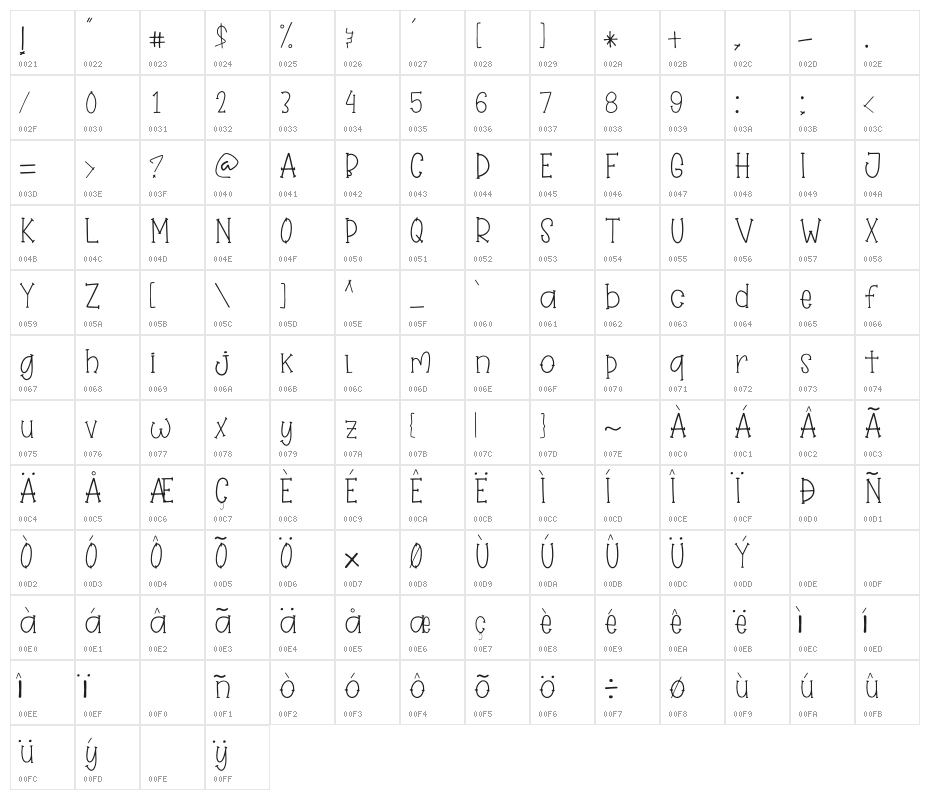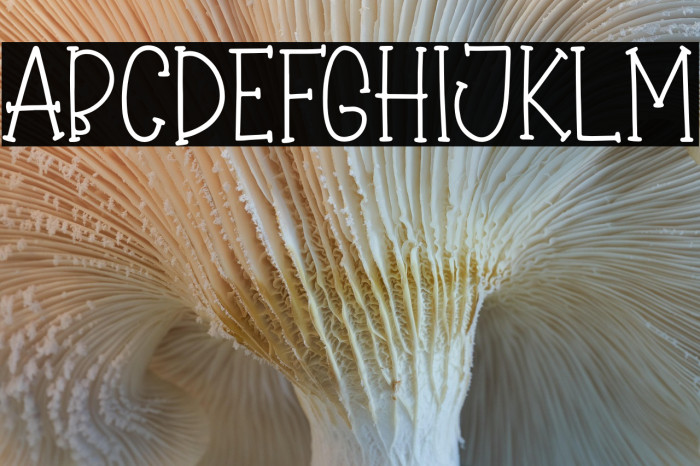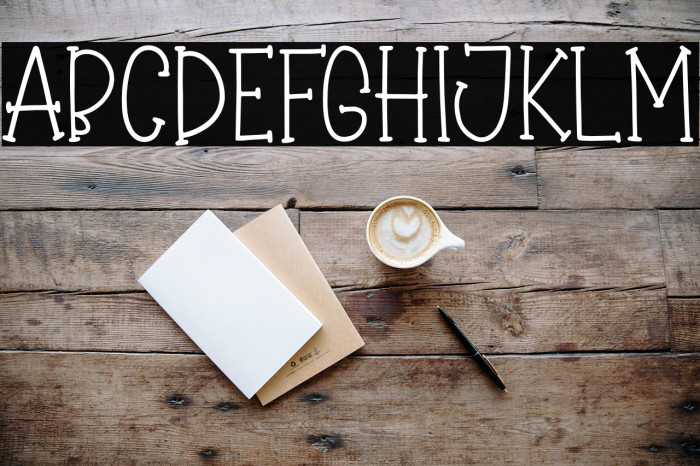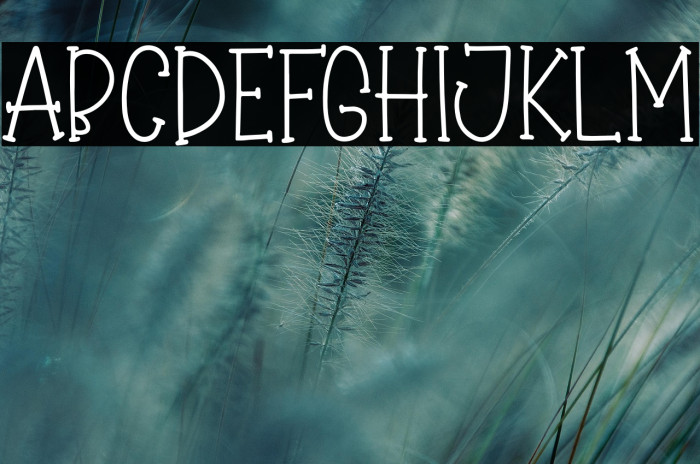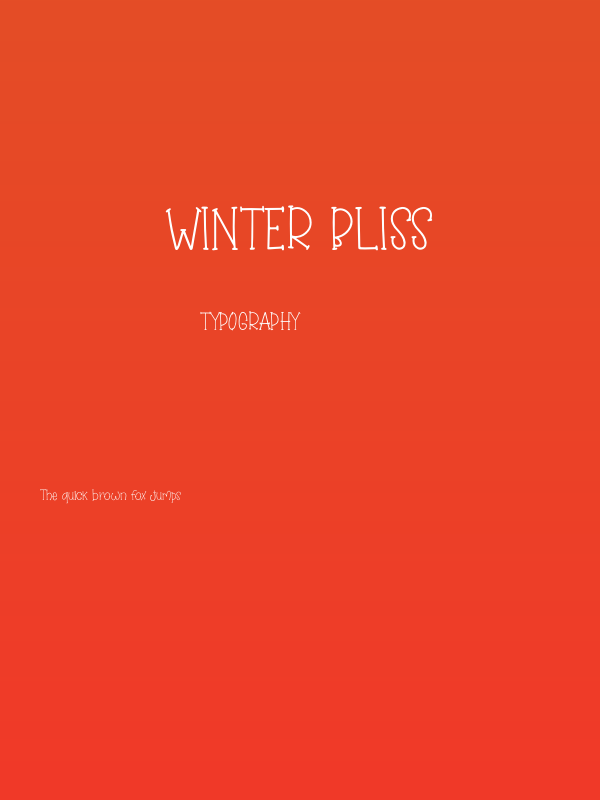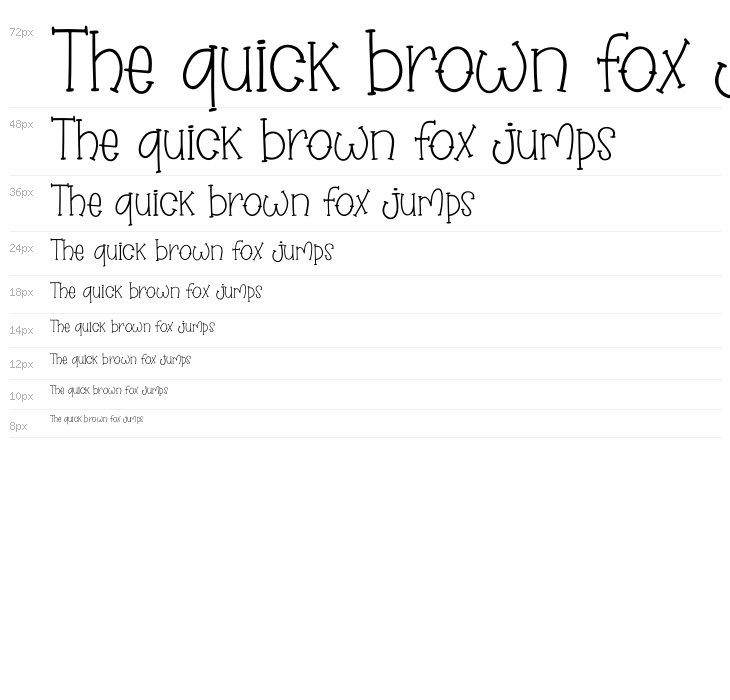
Winter Bliss Font
Winter Bliss Description
This playful and whimsical font features a handwritten style with a casual, friendly appearance. The letters are slightly irregular, adding a touch of charm and personality. The strokes are consistent in width, giving it a uniform look, while the tall, narrow characters provide a sense of elegance. The font includes both uppercase and lowercase letters, numbers, and a variety of special characters, making it versatile for different uses. Its unique style is perfect for projects that require a personal touch, such as greeting cards, invitations, or playful branding.
| Overall Style | Whimsical |
| Proposed Projects | Ideal for greeting cards, invitations, playful branding, and personal projects. |